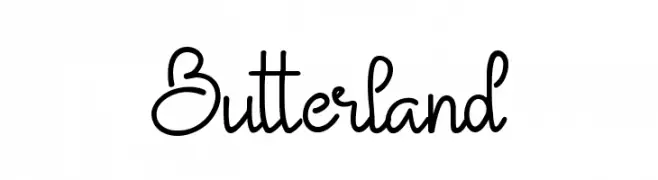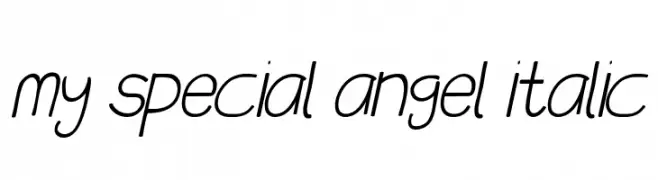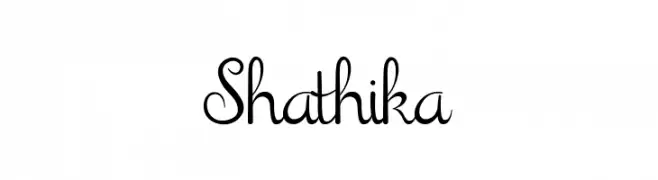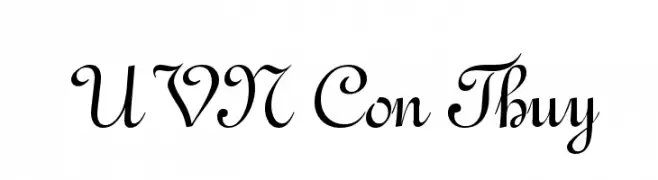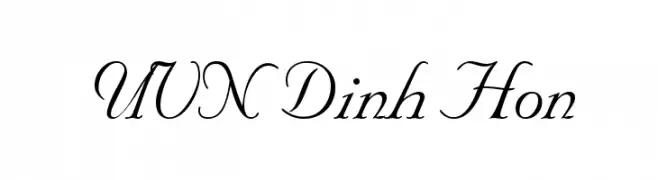
A smooth, italic font with a handwritten style and consistent stroke width.
An elegant script font with flowing, cursive strokes and a sophisticated style.
A playful, rounded font with a friendly, balloon-like appearance.
A historical, calligraphic font with an elegant, hand-drawn style.
An elegant italic serif font with smooth curves and a refined, classic style.
A light, elegant serif italic font with smooth curves and refined letterforms.